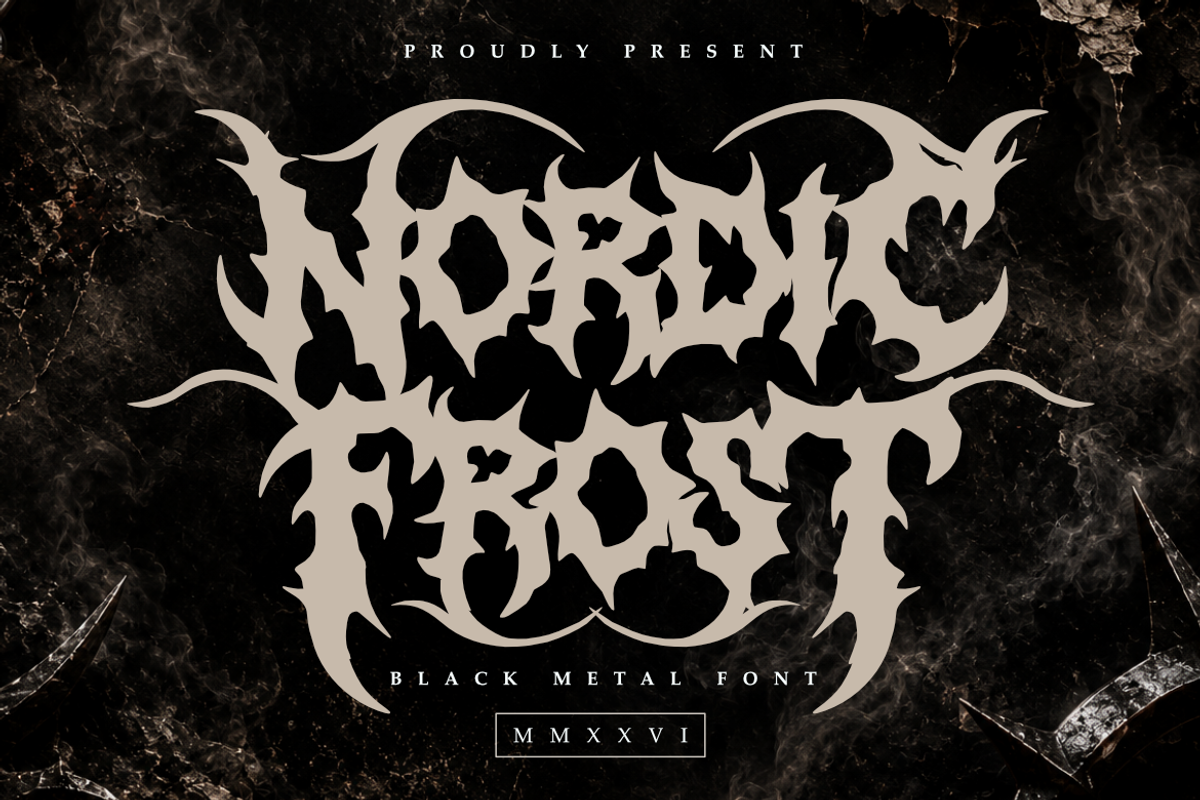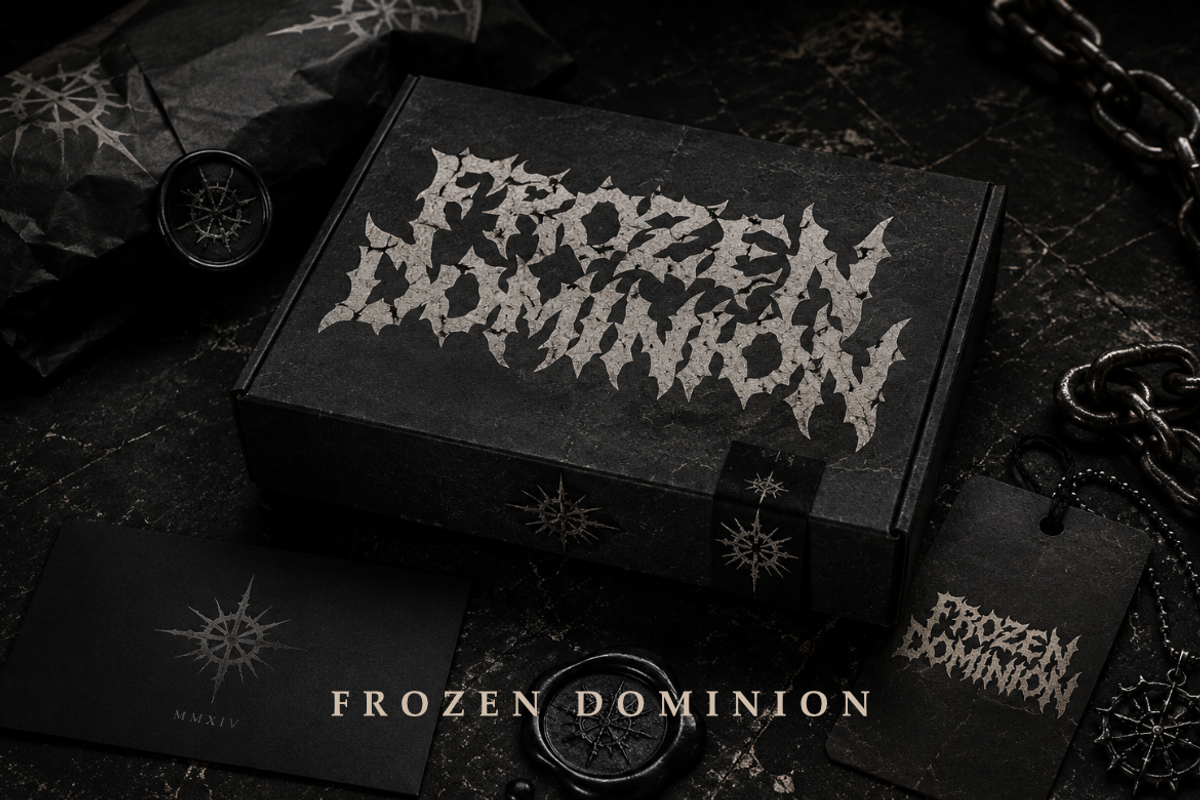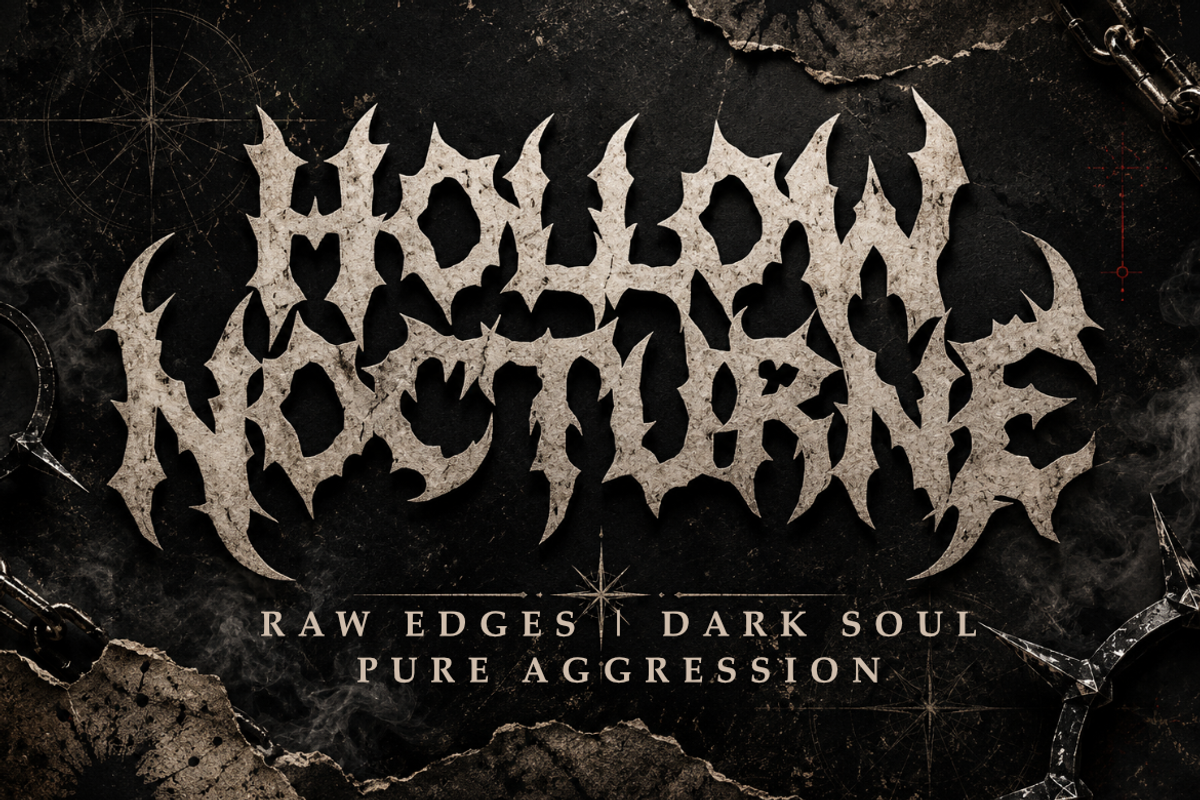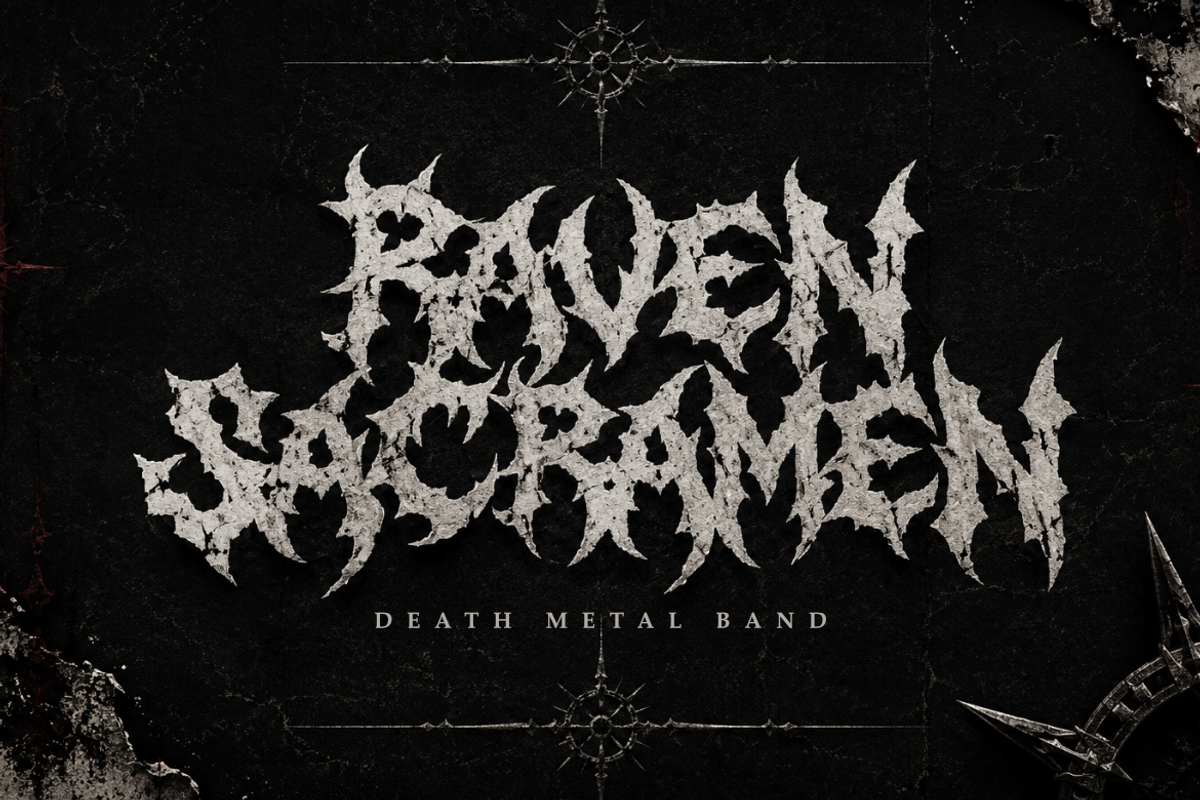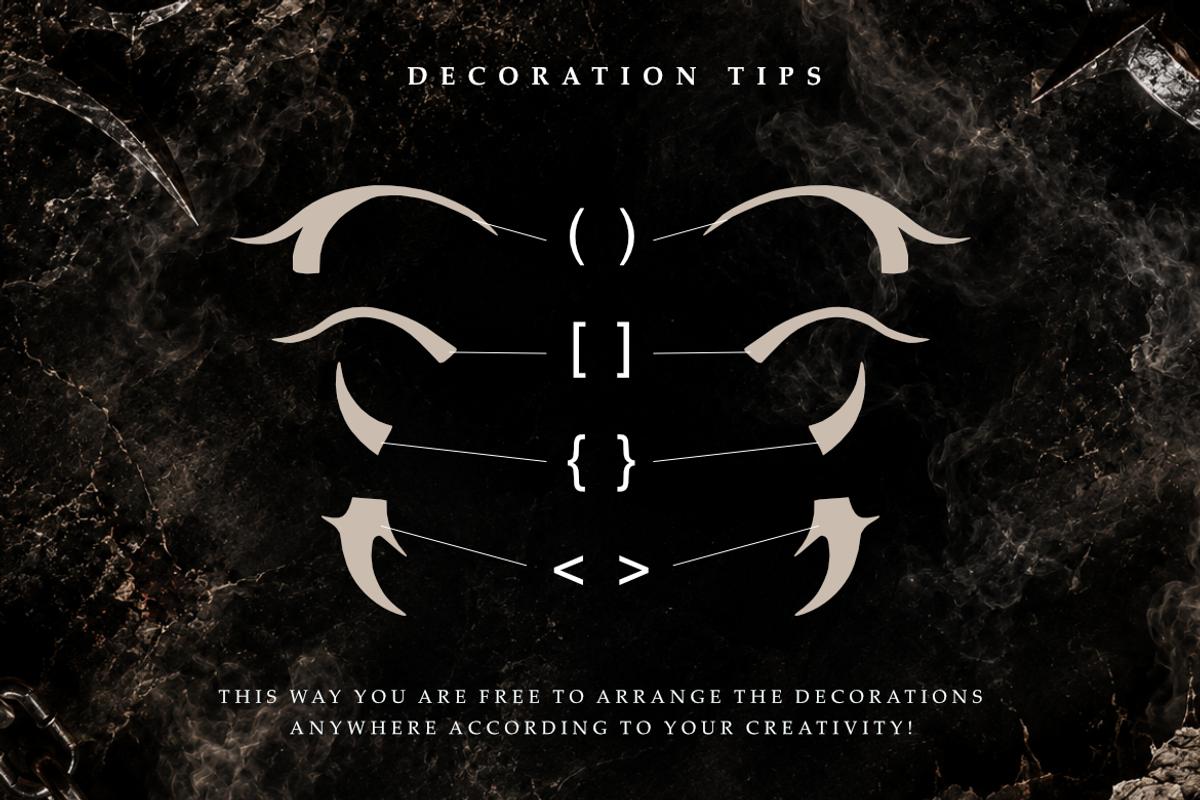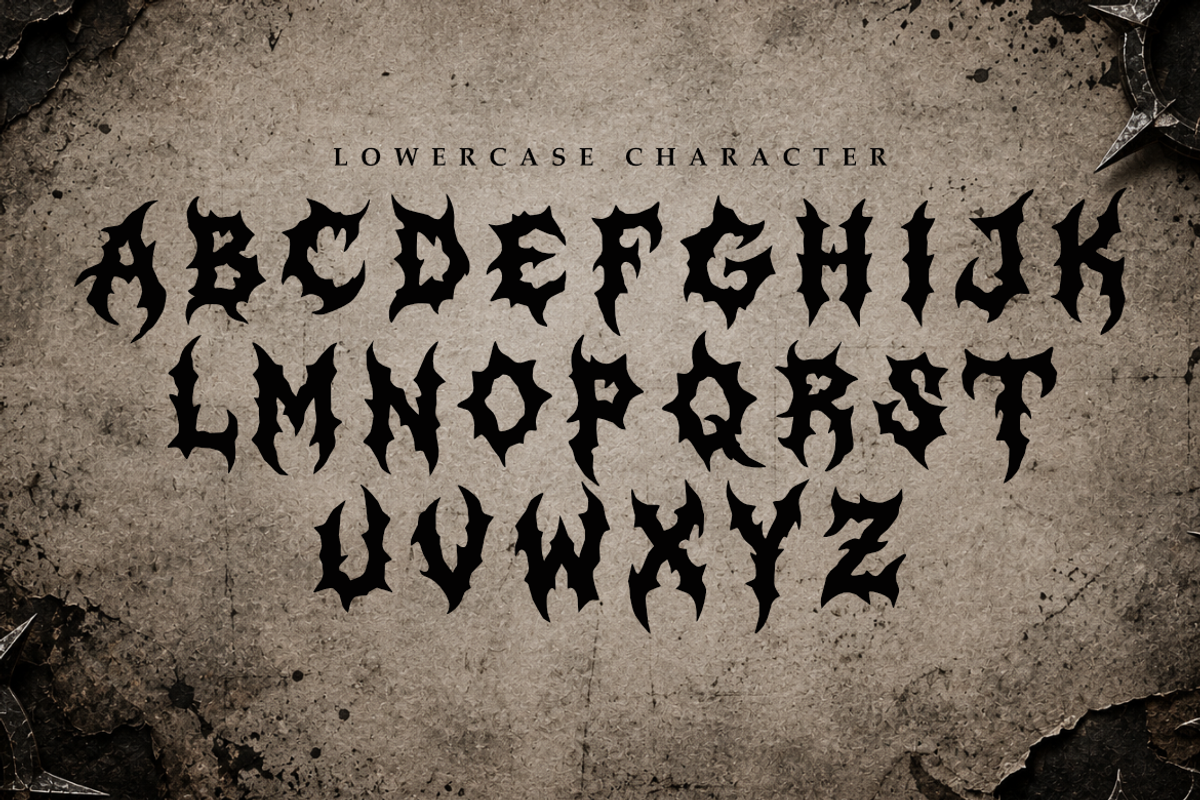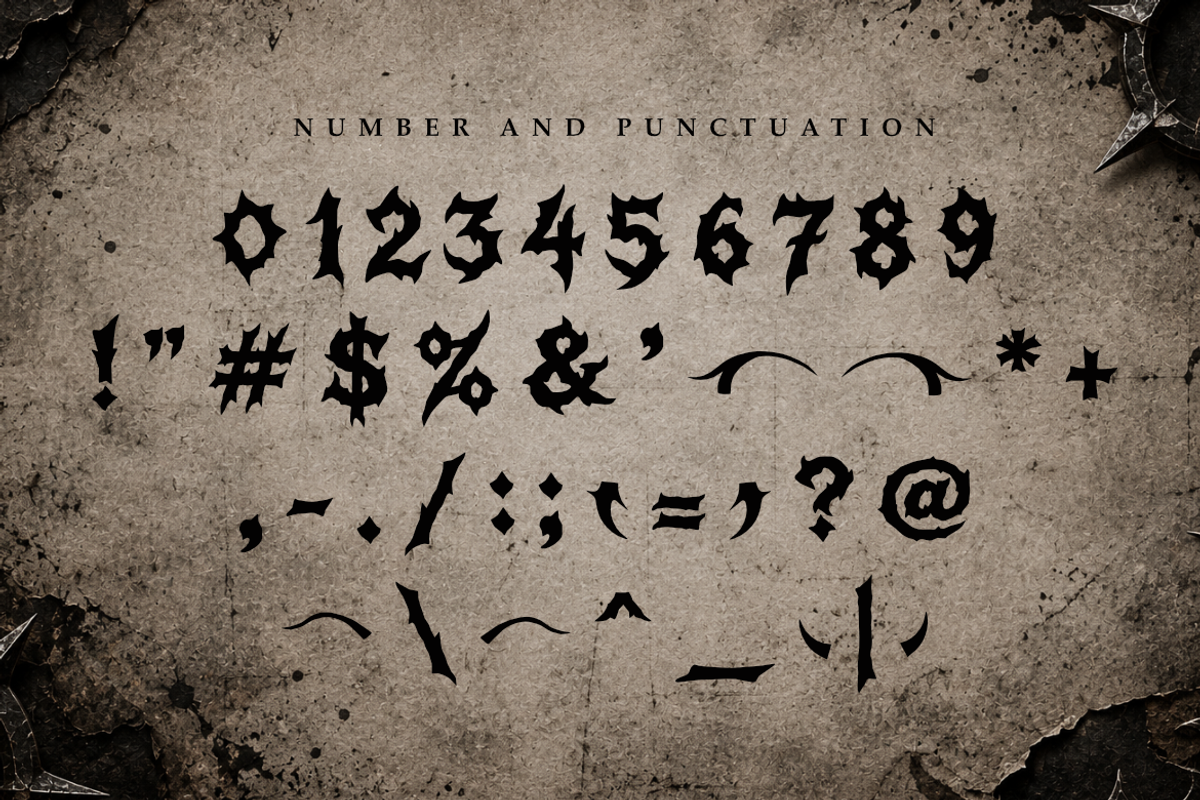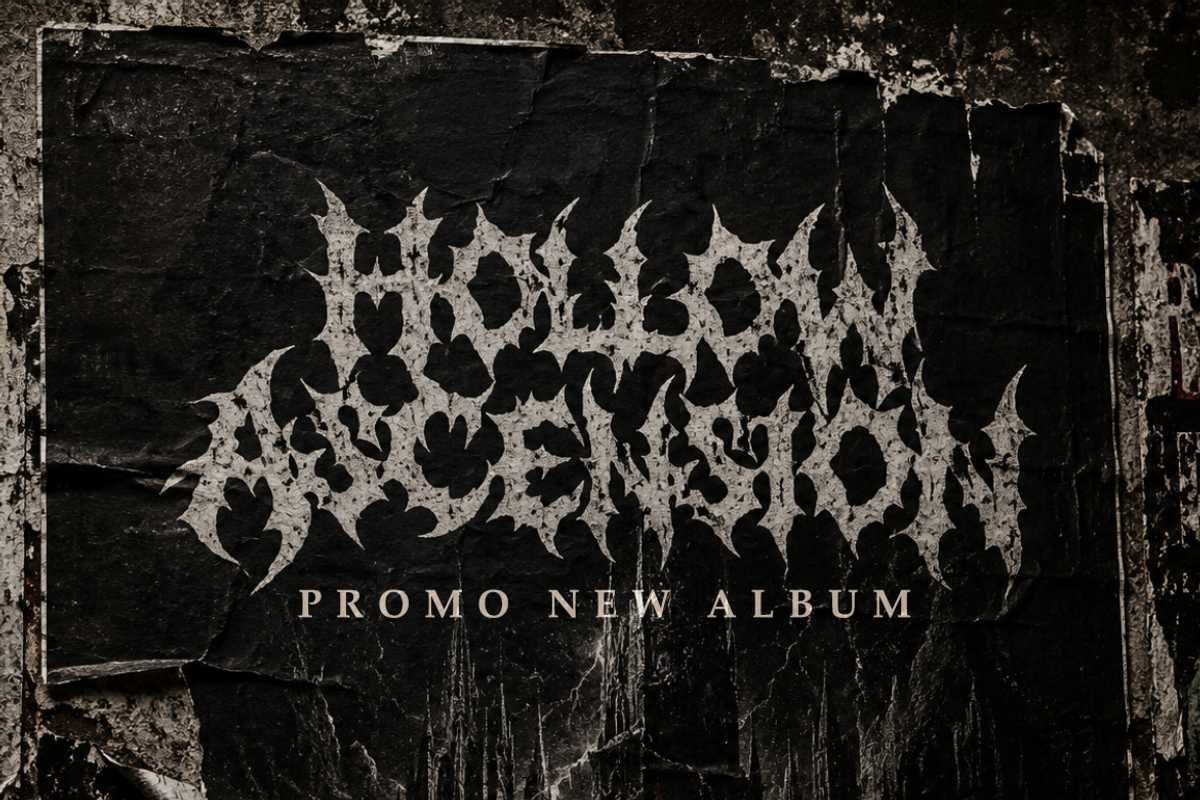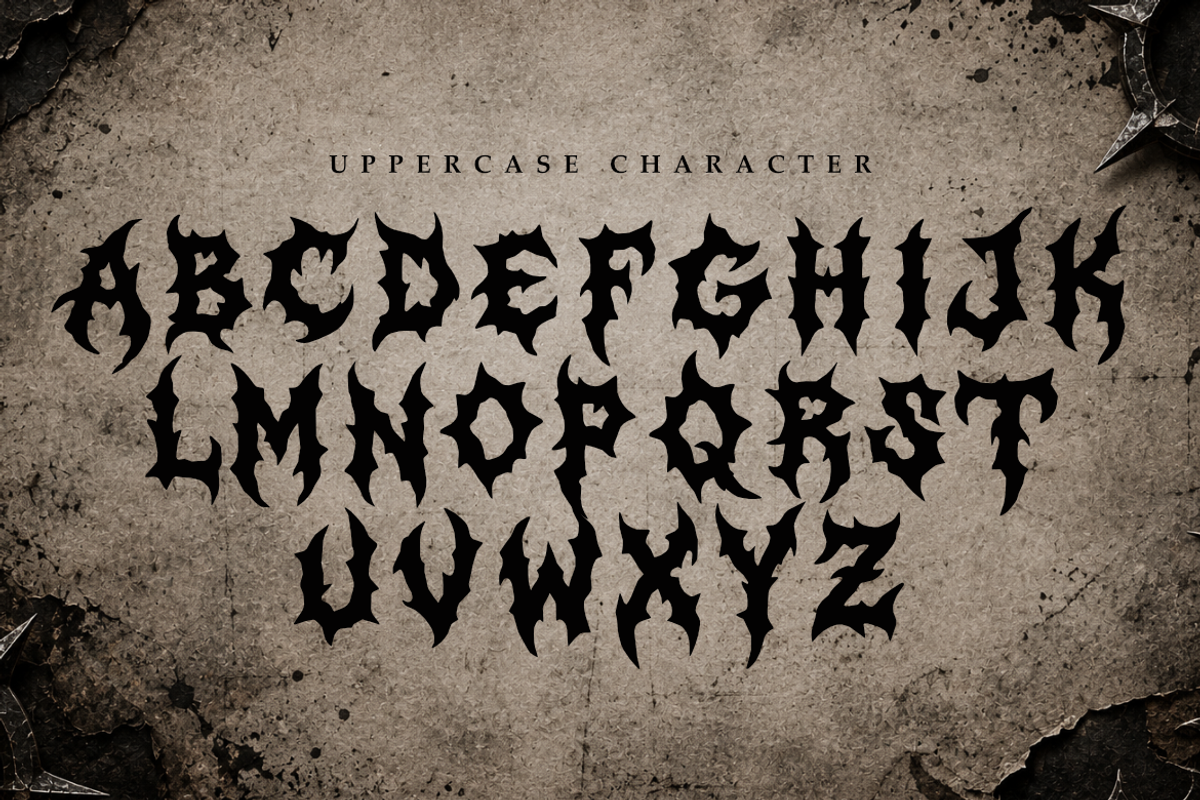
Nordic Frost | Black Metal Font
Elevate your extreme design projects with Nordic Frost, a sophisticated black metal typeface meticulously crafted for precision and impact. Blending the raw energy of underground music with clean, professional lines, Nordic Frost provides a premium edge to your visual identity.
Whether you are building a brand for a streetwear label, designing immersive album layouts, or creating polished promotional materials, this font delivers a sharp, professional finish. Its aggressive curves and spiked silhouettes ensure that your message commands attention in both digital and print environments.
Perfect for high-impact headlines and professional branding.